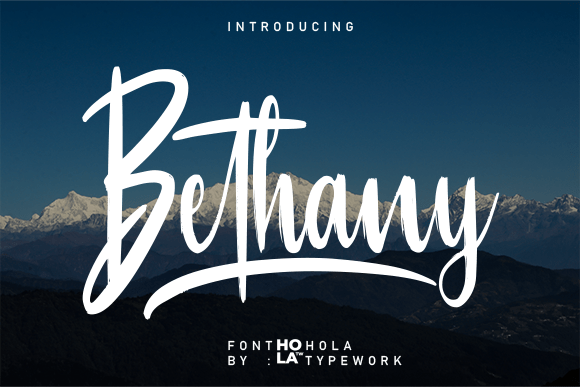
Introducing Bethany: The Brush Script Font that Elevates Your Designs
In the world of digital design, the right font can make all the difference. It’s not just about conveying a message; it’s about doing so with style, flair, and a touch of personality. This is where Bethany comes in – a brush script font that beautifully melds style and versatility, designed to amplify your digital presence and infuse an artistic touch into your creations.
The Essence of Bethany
Bethany is more than just a font; it’s an experience. With its refined charm, it has the power to transform your magazine layouts, turning them into captivating visual stories. Whether you’re a designer looking to elevate your editorial content or a crafty individual aiming to create stunning T-shirt designs, Bethany is your go-to companion. Its fluid strokes and elegant curves bring a level of sophistication and class that is hard to achieve with standard fonts.
One of the standout features of the Bethany font is its incredible versatility. It’s designed to work beautifully across a variety of mediums and applications. From enhancing your digital banners with an irresistible allure to adding a professional touch to your business cards, Bethany adapts seamlessly. Its unique aesthetic appeal is not limited to digital designs; it can also bring a personalized and artistic touch to your handmade projects, such as journals, planners, and DIY crafts.
Designed for an Intuitive User Experience
Understanding the needs of designers and crafters, Bethany has been thoughtfully designed to provide an intuitive user experience. It’s not just about looking good; it’s also about being easy to use. The font’s design ensures that it remains legible and impactful, even at various sizes and resolutions. This makes it a practical choice for both digital and print projects, offering flexibility without compromising on style.
Elevate Your Designs with Bethany
So, what makes Bethany a must-have for your design arsenal? The answer lies in its uniquely captivating aesthetic appeal. The hypnotic rhythm of its strokes invites the viewer and holds their attention, making your designs memorable. Whether you’re aiming to create a bold statement or a subtle impression, Bethany provides the perfect canvas for your creativity.
Practical Applications of Bethany
The possibilities with Bethany are endless. Here are a few ideas to get you started:
- Magazine Layouts: Use Bethany to add a touch of elegance to your headings, pull quotes, or even body text.
- T-Shirt Designs: Transform standard designs into captivating artwork that stands out.
- Banners: Weave an irresistible allure into your banners, making them impossible to ignore.
- Digital Content: Enhance your promotional content with a class that truly stands apart.
- Craft Projects: Add a professional and artistic touch to your handmade crafts, such as journals, planners, and more.
Bethany is not just a brush script font; it’s a design companion that can elevate your projects to new heights. Its blend of style, versatility, and user-friendly design makes it an indispensable tool for designers and crafters alike. With Bethany, you can create designs that are not only visually appealing but also memorable and impactful. Experience the hypnotic rhythm of the Bethany font and discover a new world of design possibilities.